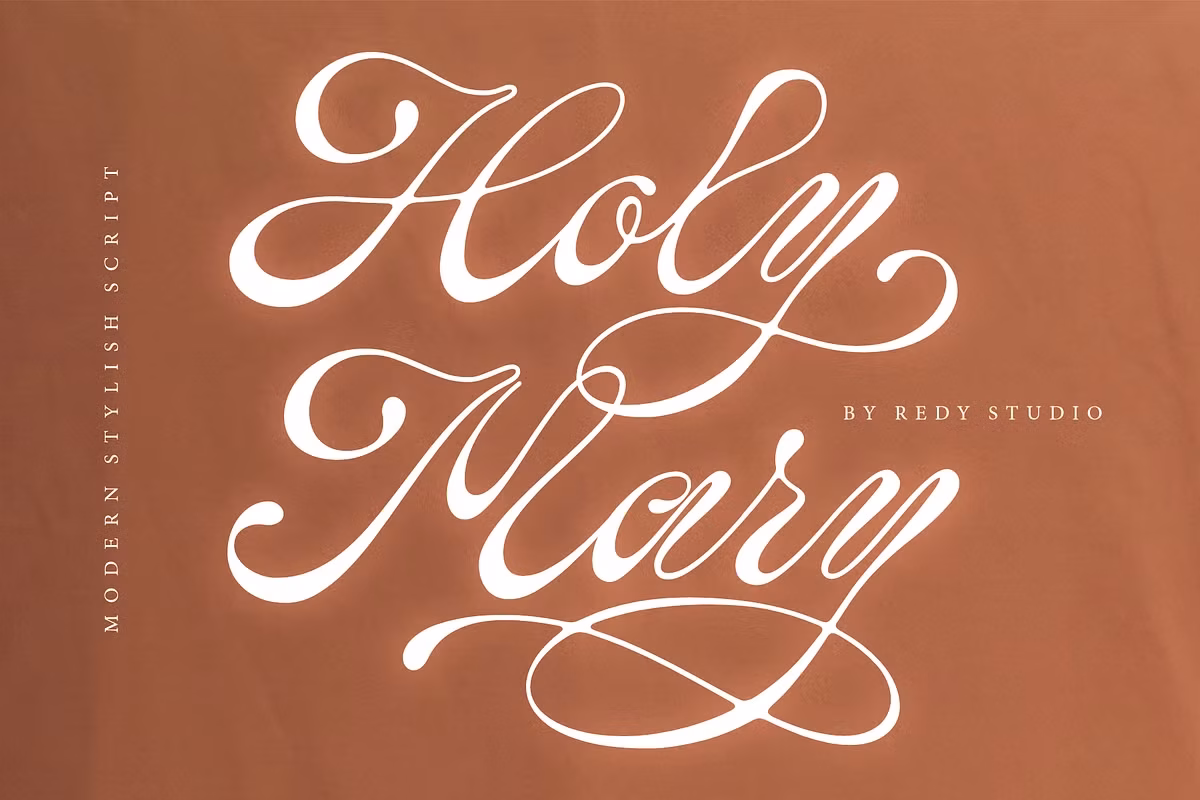
Please note that you must purchase this font for commercial use. You can download Holy Mary – Modern Calligraphy Font for free, strictly for personal testing purposes only. Holy Mary is an elegant, flowing modern calligraphy font that combines sophistication with a personal touch. With its delicate, sweeping curves and fluid letterforms, Holy Mary Font Free Download is perfect for wedding invitations, luxury branding, greeting cards, social media posts, and any design that requires a graceful, handwritten feel.
This font exudes elegance, making it ideal for projects that need to feel intimate, romantic, or high-end. It includes uppercase and lowercase letters, numerals, punctuation, and multilingual support, ensuring versatility for a wide range of creative uses.
Whether you're working on a luxurious brand, a personalized invitation, or creating artful typography, Holy Mary adds a refined, artistic flair to your work.